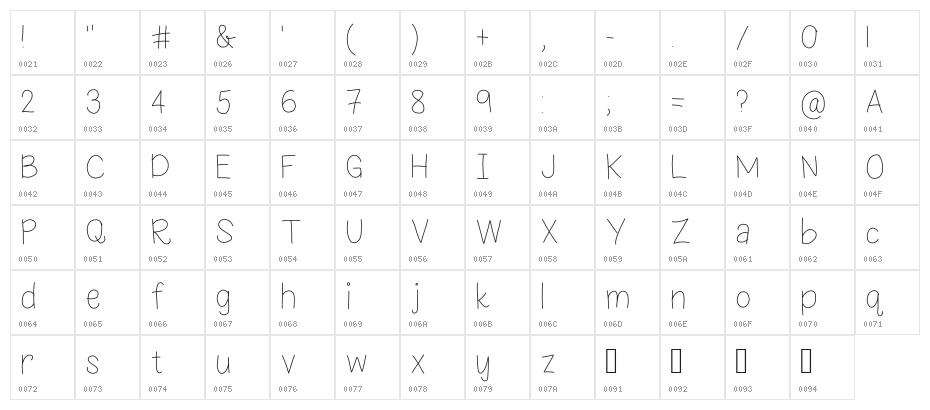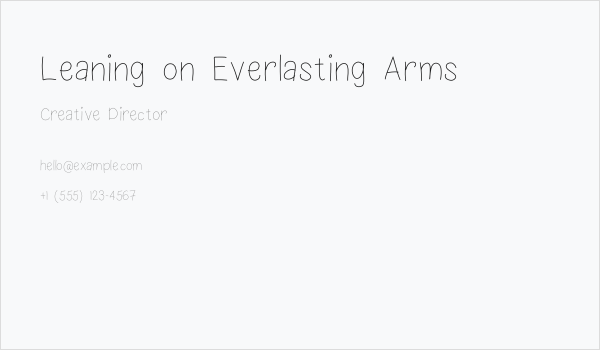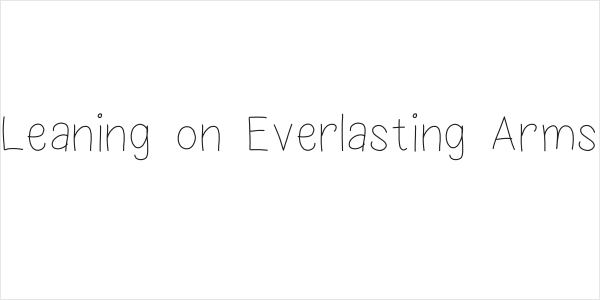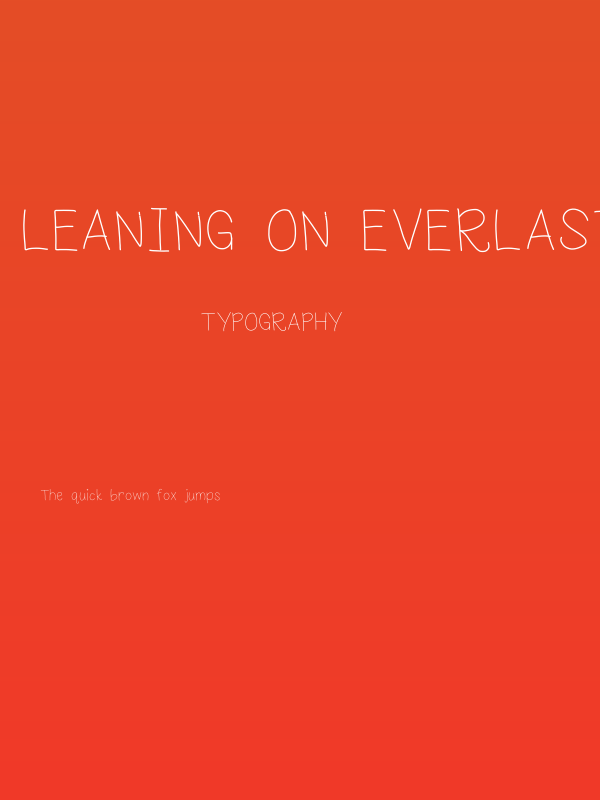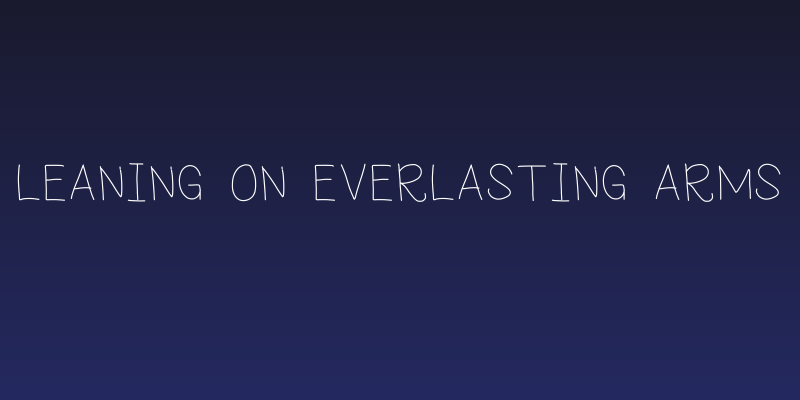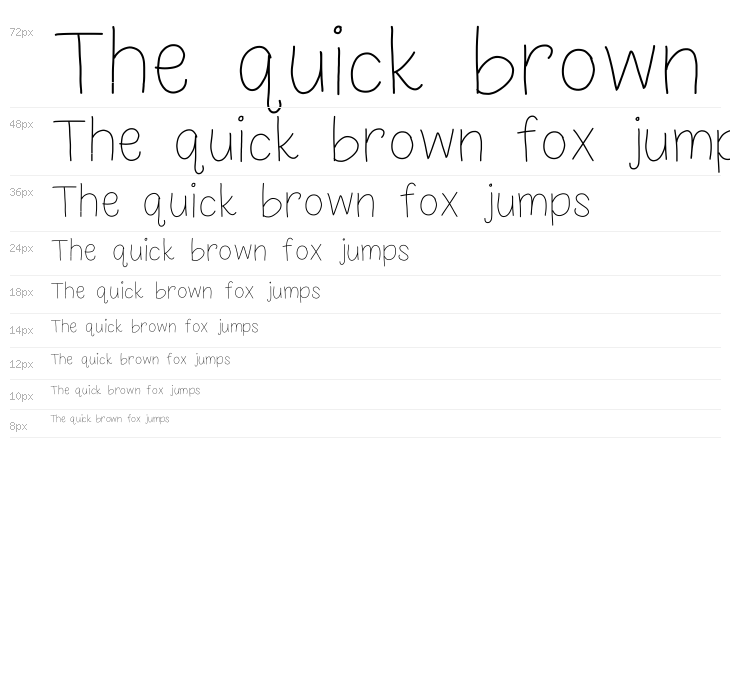
Leaning on Everlasting Arms Font
Leaning on Everlasting Arms Description
This font features a playful and whimsical handwritten style, characterized by its thin, slightly uneven strokes that give it a casual and friendly appearance. The letters are tall and narrow, with a slight slant that adds to the informal feel. The uppercase letters maintain a consistent height, while the lowercase letters vary slightly, adding to the hand-drawn effect. The numerals are clear and legible, matching the overall style of the alphabet. Special characters are included, maintaining the same playful aesthetic. This font is ideal for projects that require a personal touch, such as greeting cards, invitations, or children's book illustrations.
| Use Case | Headlines, Invitations, Branding |
| Proposed Projects | Ideal for greeting cards, invitations, children's books, and playful branding. |